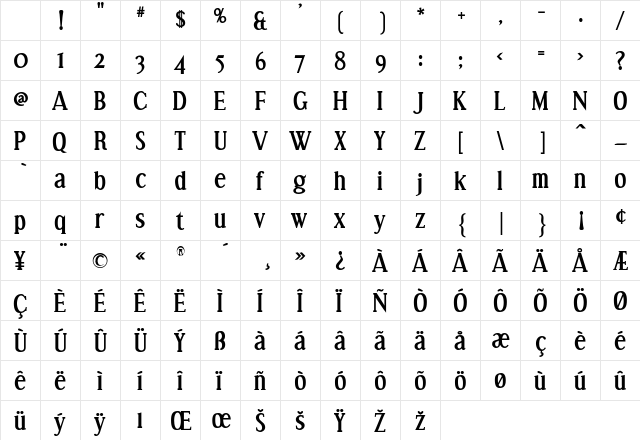
Complete Effloresce Bold glyph index. Displaying only characters natively supported by Effloresce Bold font.
Effloresce is a composed and adaptable typeface that performs quietly and consistently across a wide range of design contexts. Its bold stroke weight gives it real presence on the page.